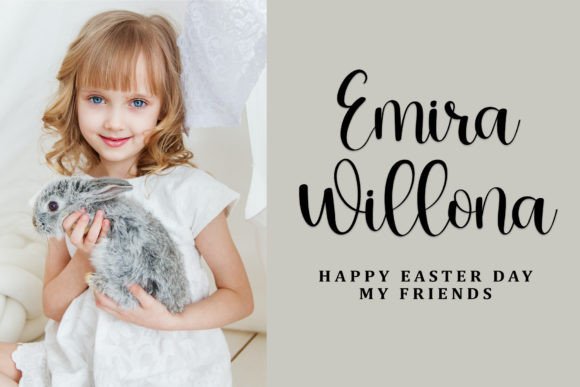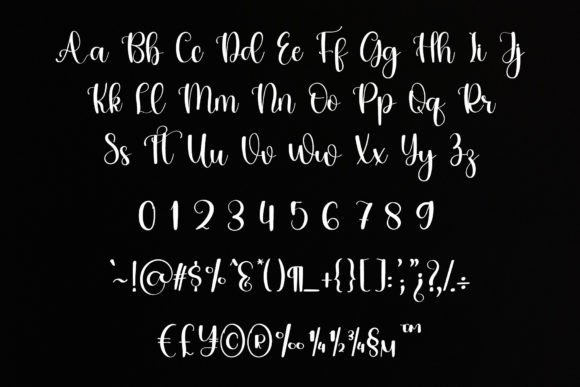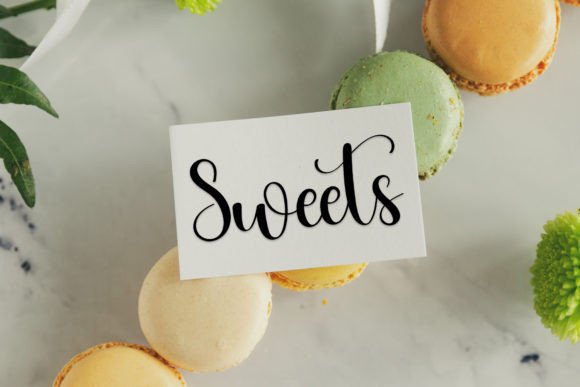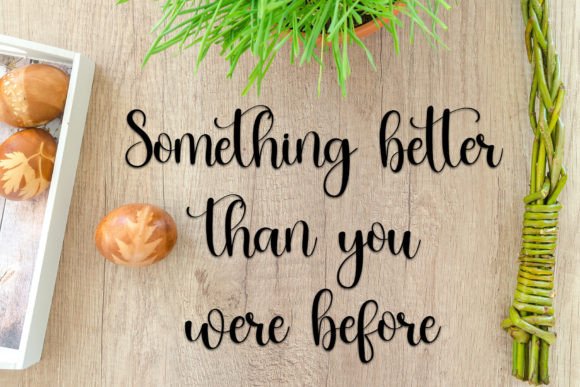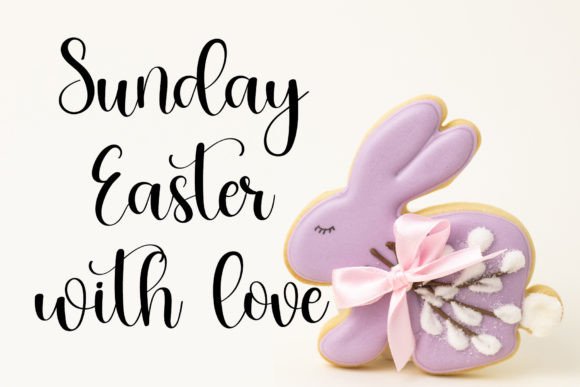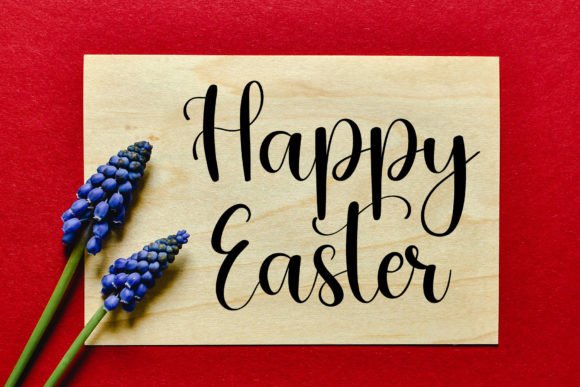
The Easter Bunny Font: A Creative Gem for Your Design Projects
I’ll never forget the time I was working on a wedding invitation project, and I just couldn’t find the right font to match the elegant yet playful vibe of the couple’s special day. The font had to be casual, yet sophisticated; flowing, yet balanced. It was as if I was on a mission to find the perfect Easter egg – hidden somewhere, waiting to be discovered. That’s when I stumbled upon the Easter Bunny Font, and it was love at first sight! 💕
As a designer, I’m always on the lookout for fonts that can elevate my projects and make them stand out. The Easter Bunny Font has been a game-changer for me, and here’s why:
- ✨ Unique and versatile style: This font is incredibly versatile, making it perfect for a wide range of projects, from wedding invitations to social media posts.
- ✅ Balanced and varied: The font’s balanced and varied design ensures that it looks great in both large and small sizes.
- 💫 Beautifully crafted: The Easter Bunny Font has a certain charm to it, with beautifully crafted letters that are sure to impress.
Of course, no font is perfect, and there are a few quirks to be aware of:
- 🤔 Limited multilingual support: While the Easter Bunny Font supports some languages, it’s not extensive. If you need to work with multiple languages, you might want to double-check the font’s capabilities.
- ⚠️ Occasional kerning issues: As with any font, there might be some kerning issues, especially when using certain character combinations. However, these are relatively rare and can be easily adjusted.
- Experiment with OpenType features, such as stylistic alternates and glyphs, to add more personality to your text.
The Story Behind the Easter Bunny Font
The Easter Bunny Font was designed by a talented type designer who wanted to create a font that would evoke the feeling of springtime and new beginnings. Inspired by the playful and whimsical nature of the Easter bunny, this font is perfect for designers who want to add a touch of personality to their projects.
Q: Is the Easter Bunny Font suitable for body text?
A: While the Easter Bunny Font is beautiful, it’s best suited for display text or headings. For body text, you might want to choose a more legible font.